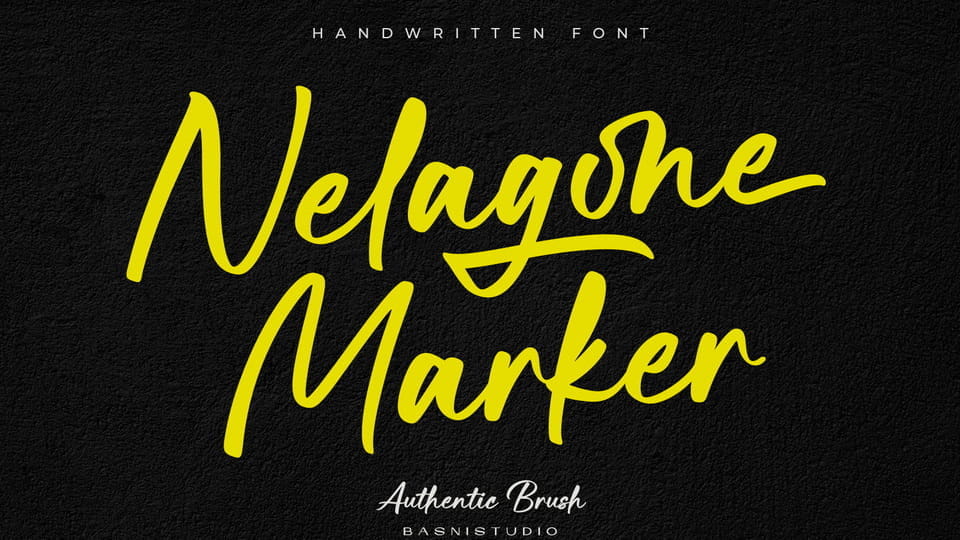
Download Nelagone Marker font, a bold casual marker handwritten typeface inspired by real marker strokes. It brings a fun, energetic, and expressive feel.